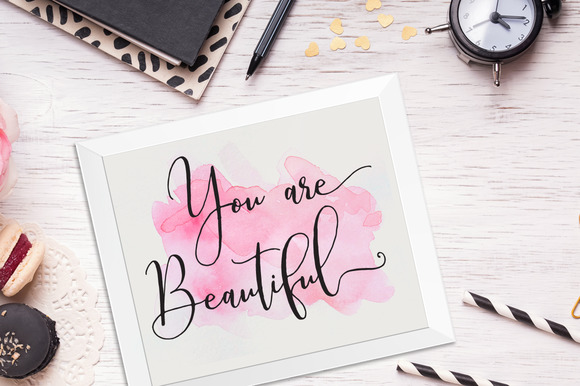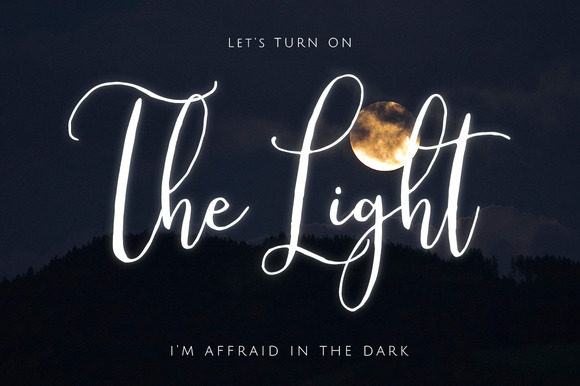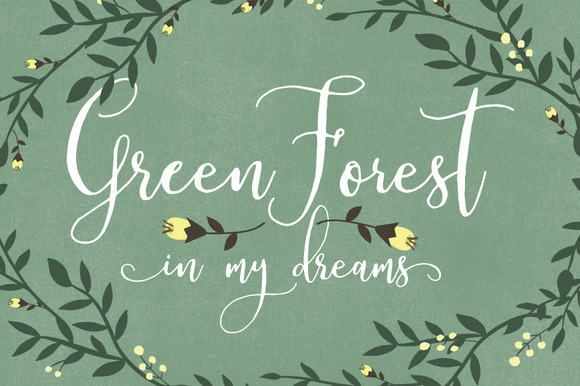
Patricia Modern
Patricia Modern Brush Font
Introducing, Patricia Modern Brush. Modern and beautiful typeface, with alternative letters, and swashes. ready to beautify your modern design. Differently from other brush font, these font does not have the effect of spark.